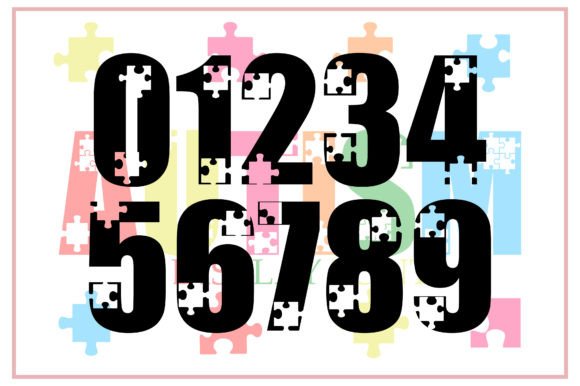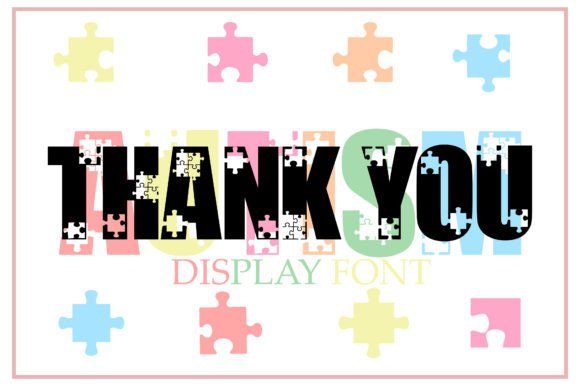
Autism Font
Autism is a trendy and unique decorative font specially crafted to make your projects more interesting! Add it to your fonts library, and it will become an instant favorite!